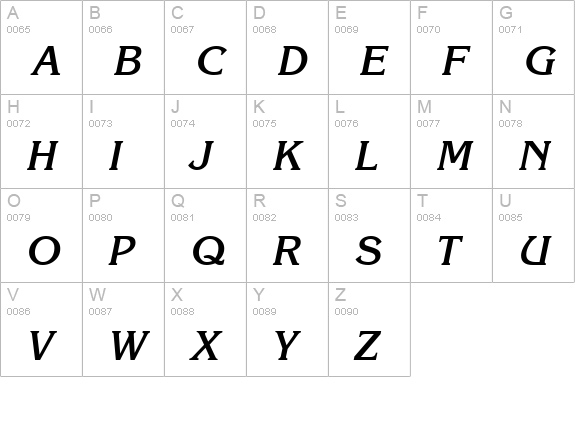
TR Eagles Bold Italic Font Details
TR Eagles Bold Italic is a strong, high-contrast, italic variant in the TR typeface family \xE2\x80\x94 well suited to headlines, attention-grabbing titles, and strong calls-to-action.
The TR Eagles Bold Italic font is a striking and dynamic typeface that exudes confidence and power. With its bold strokes and slanted italics, this font is perfect for making a bold statement in your designs. Whether you're creating eye-catching posters, impactful headlines, or stylish branding materials, TR Eagles Bold Italic will surely grab the attention of your audience. And the best part? This fantastic font is available for free download at FontsMarket.com! Enjoy the versatility and style of TR Eagles Bold Italic without any cost, and elevate your design projects to the next level. Don't miss out on this amazing opportunity to add a touch of bold elegance to your creations with TR Eagles Bold Italic. Download it today and let your designs soar!